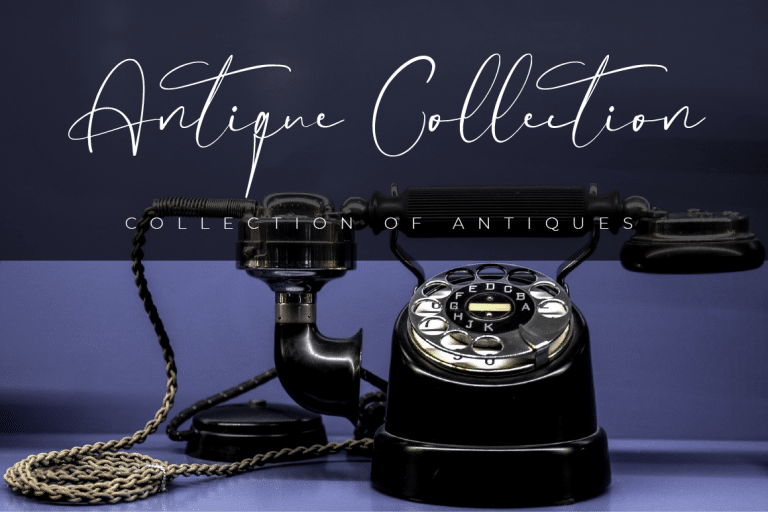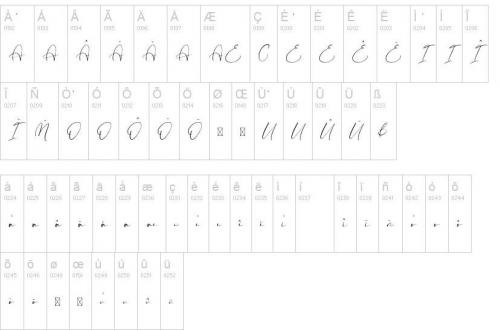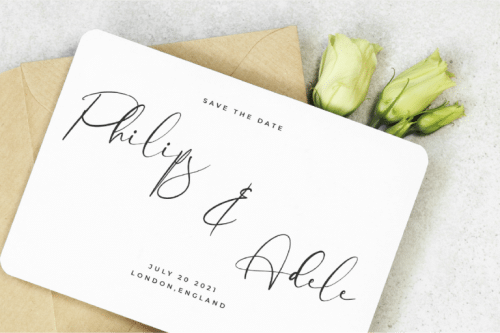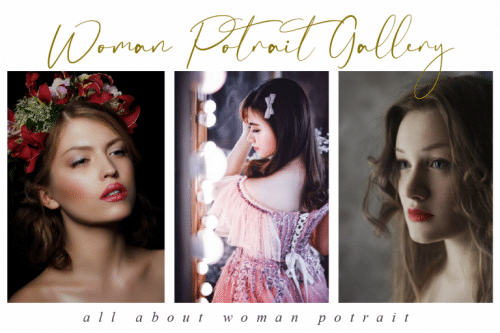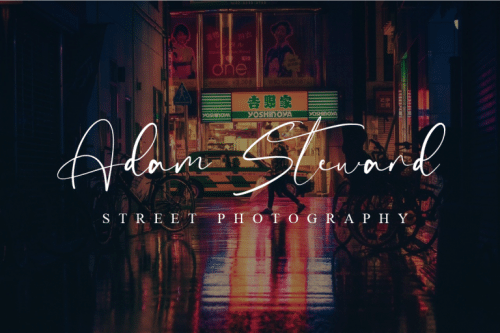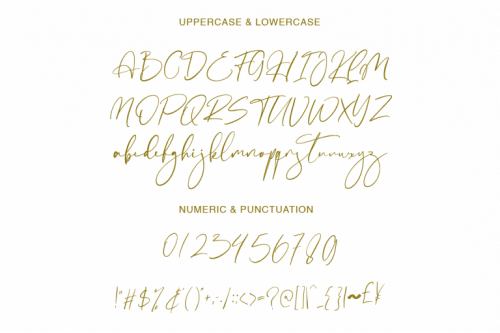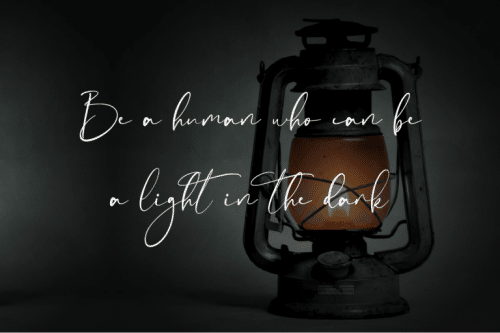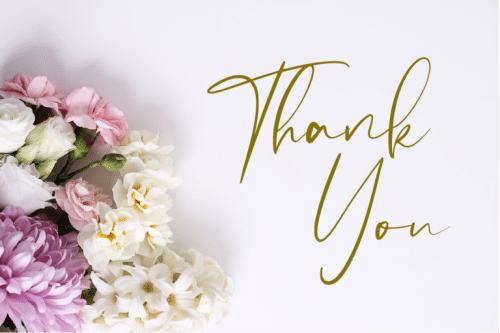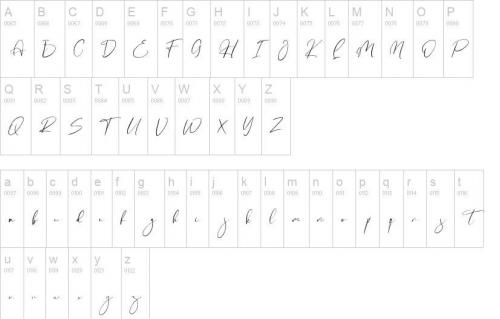
Halestond Font
Halestond Font is a Elegant Wedding Fonts that feels incredibly elegant because of its delicate and flowing lines. It looks stunning on wedding invitations, thank you cards, quotes, greeting cards, logos, business cards, and every other design which needs a handwritten touch. It features a varying baseline, smooth lines, gorgeous glyphs, and stunning alternates.
This enchanting font will turn any creative idea into a true standout. Perfect fit for all of your logos, branding, social media, etc. Get creative with its unique playfulness, and use it to brighten up any crafting project!